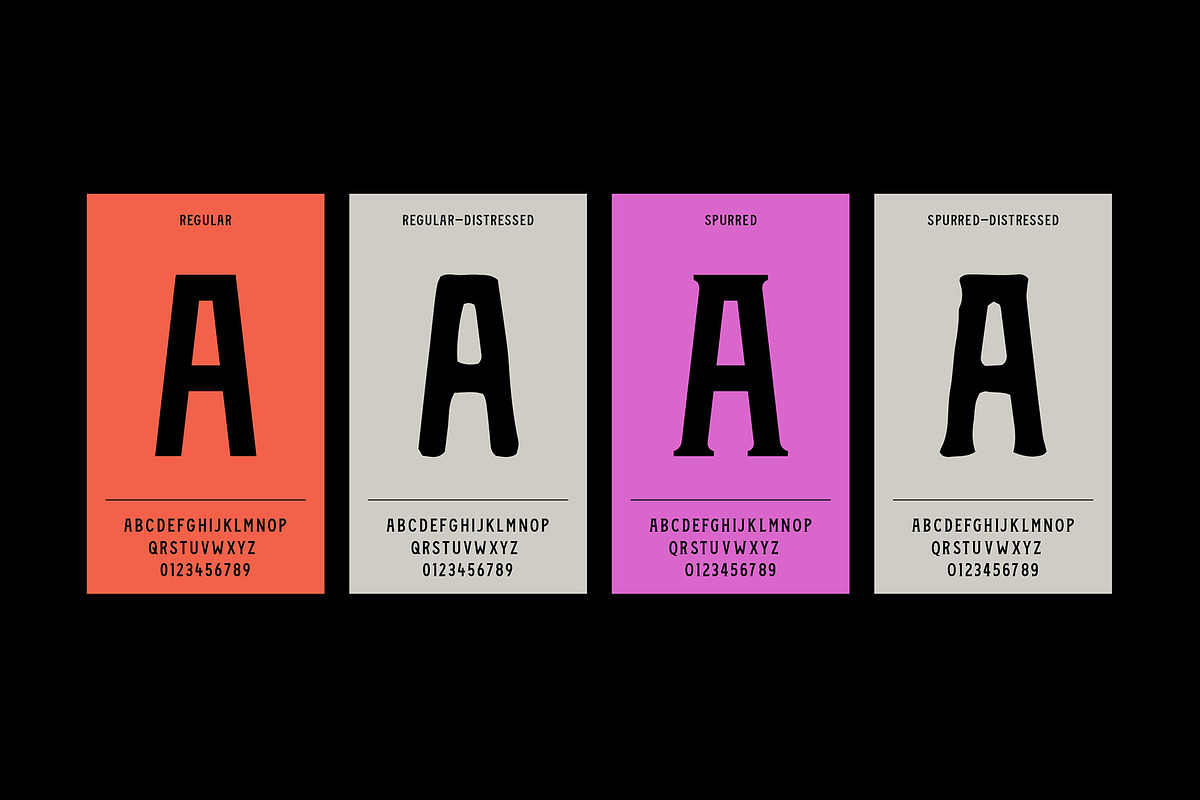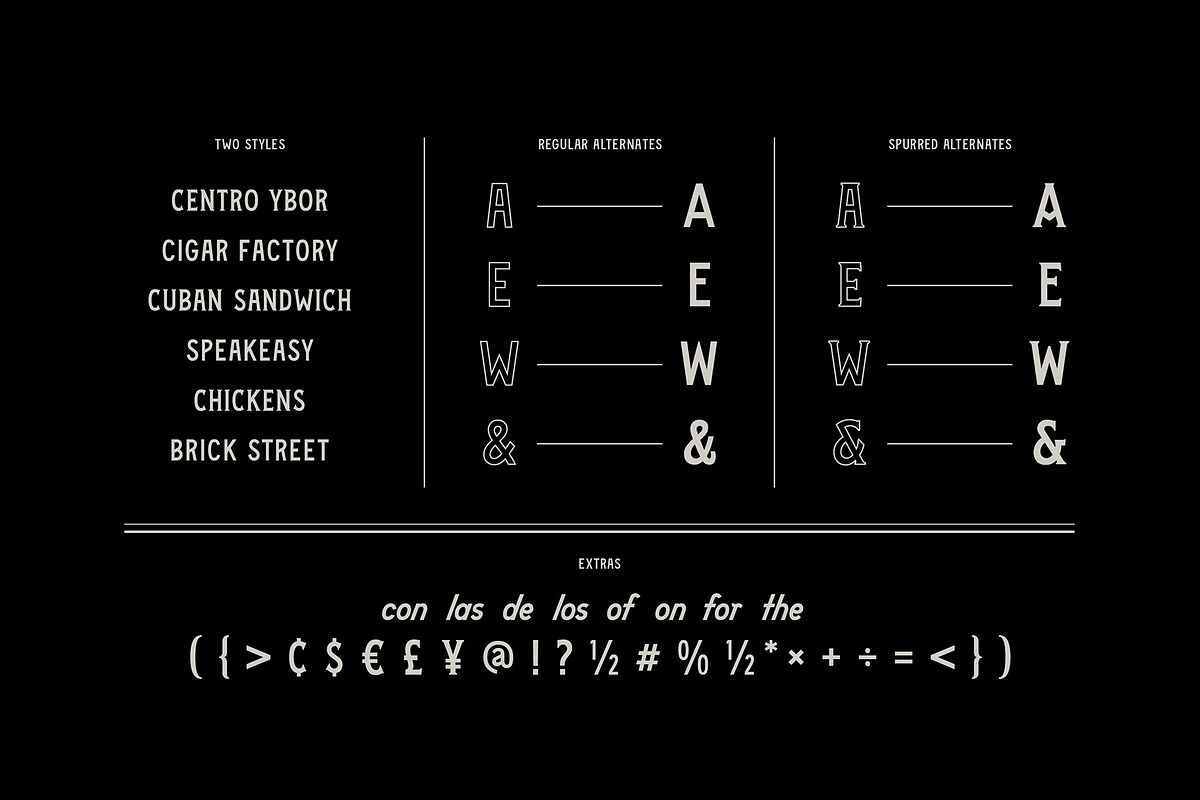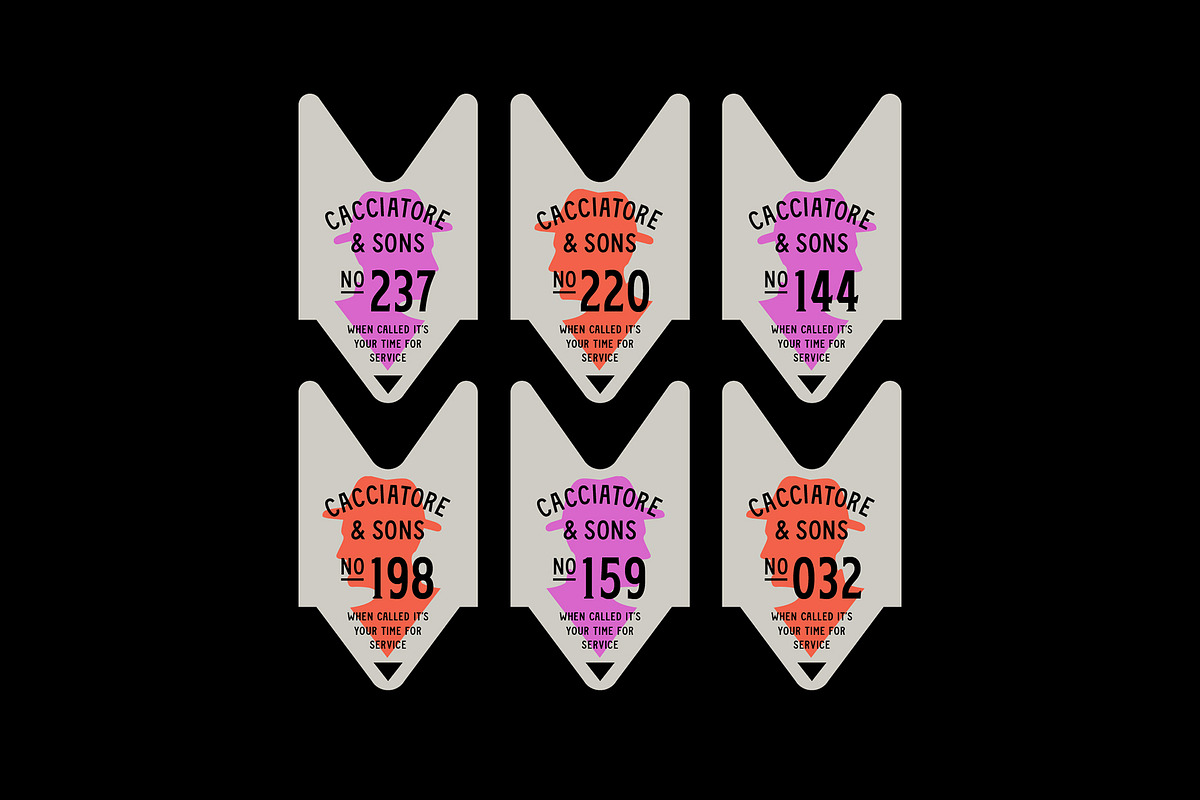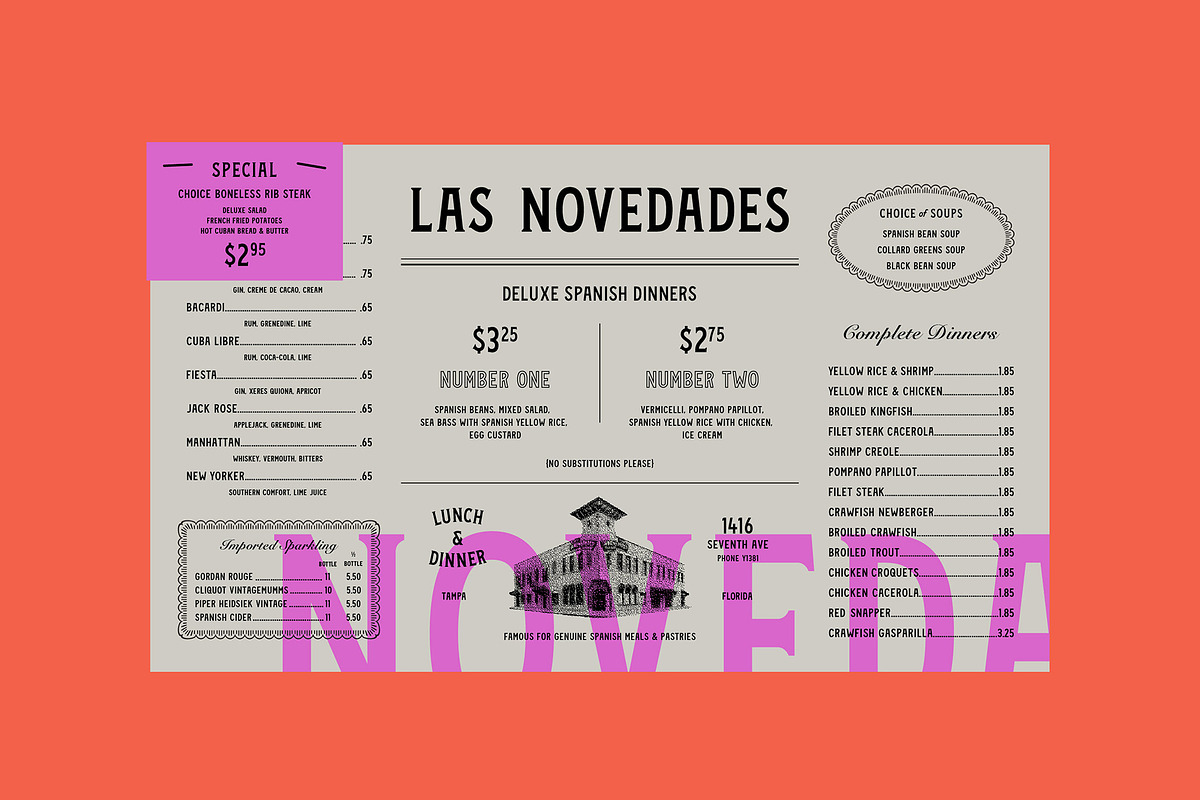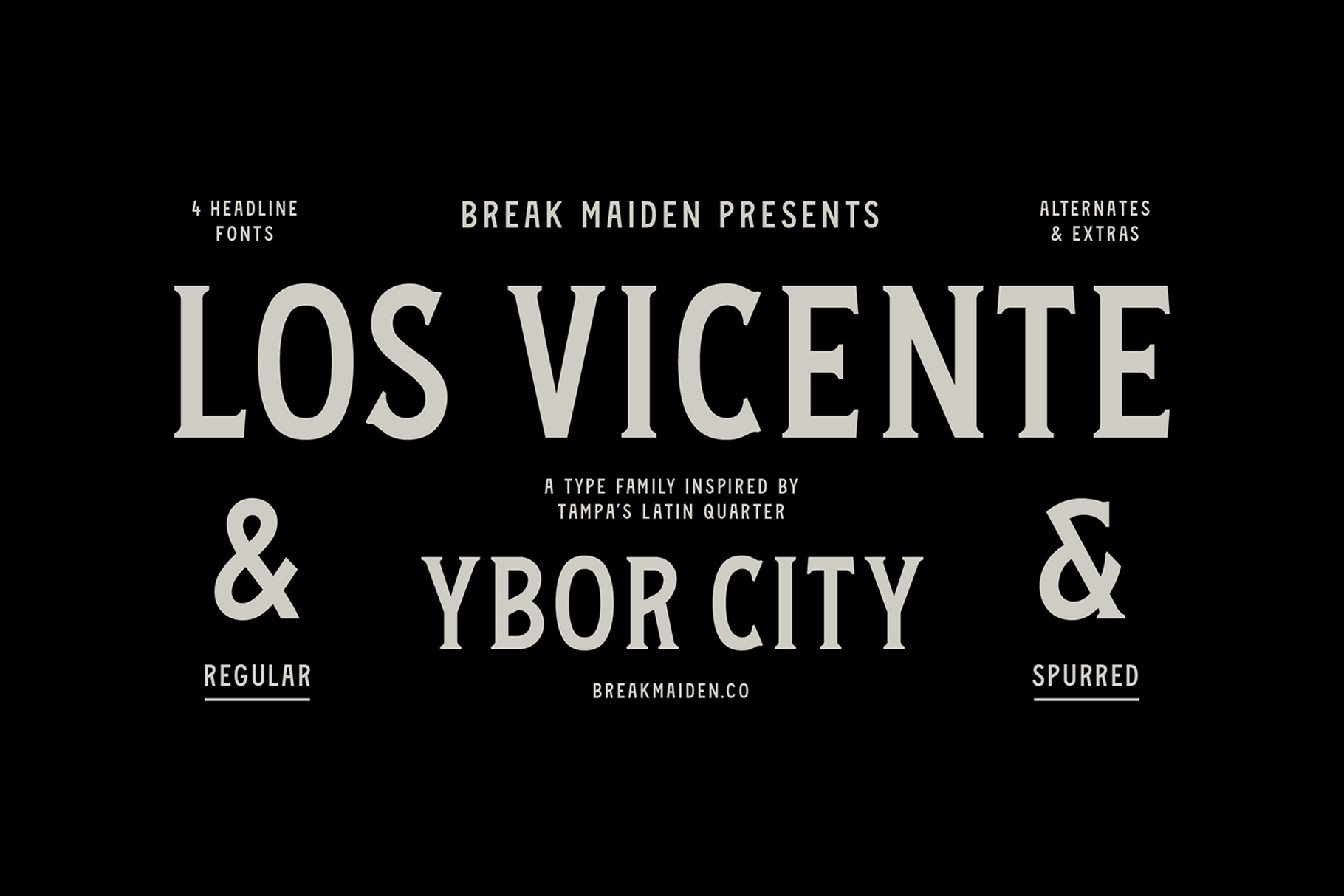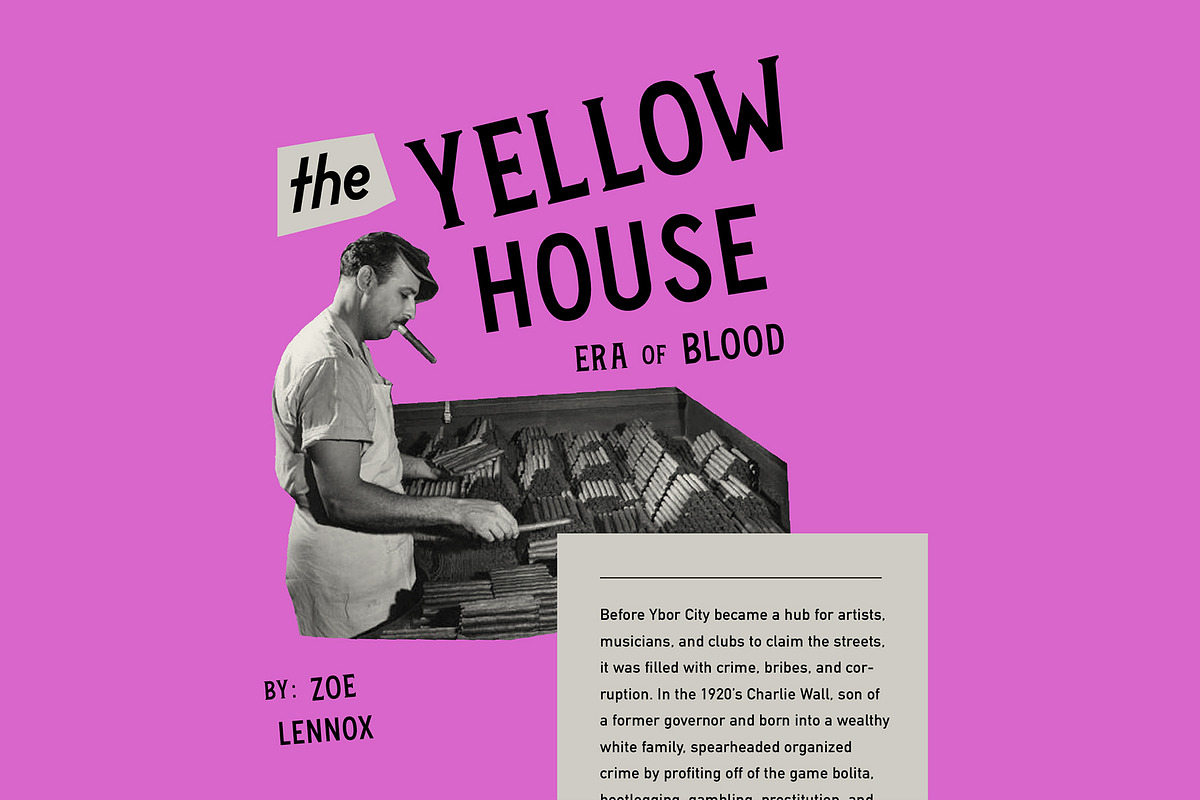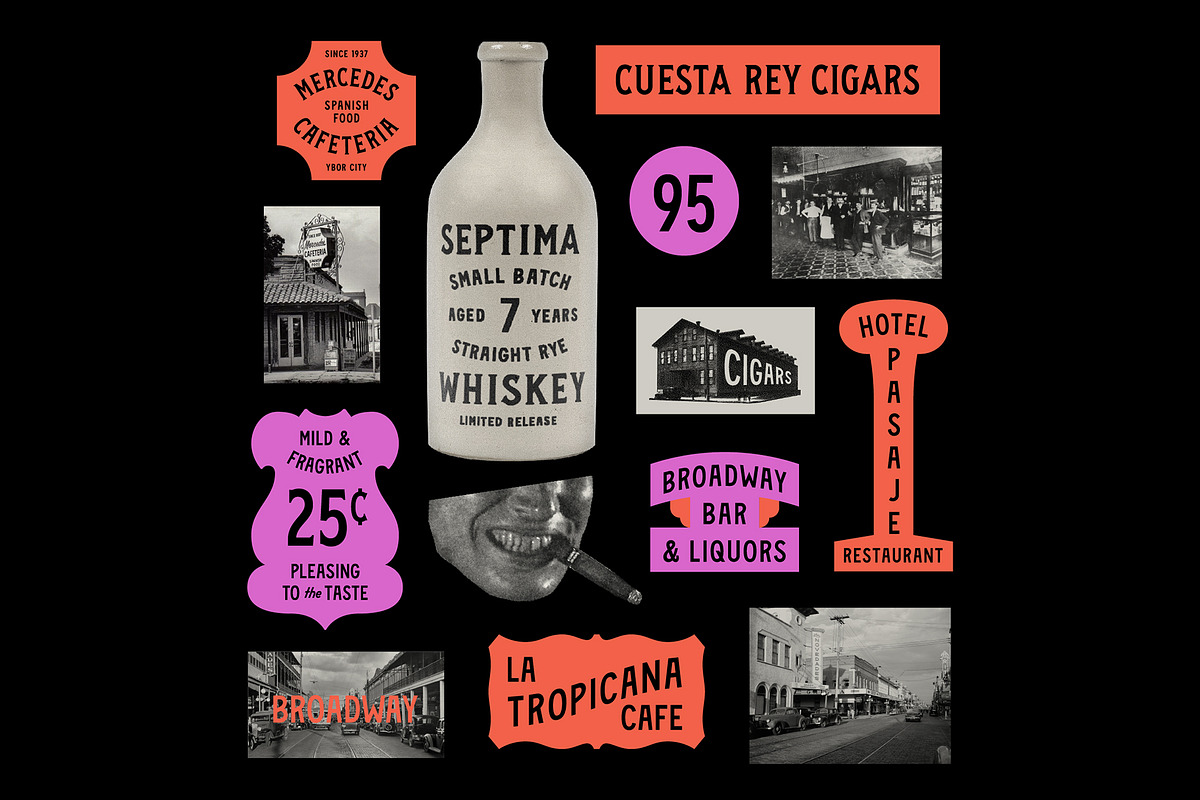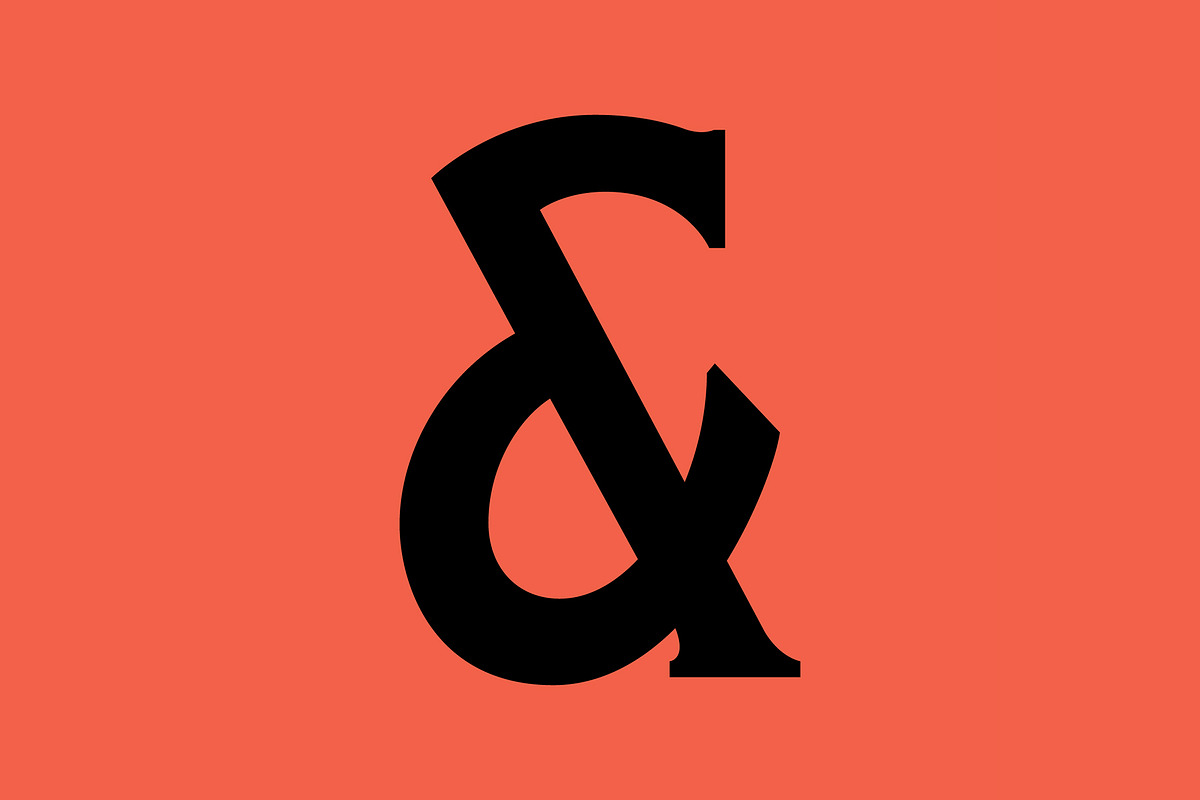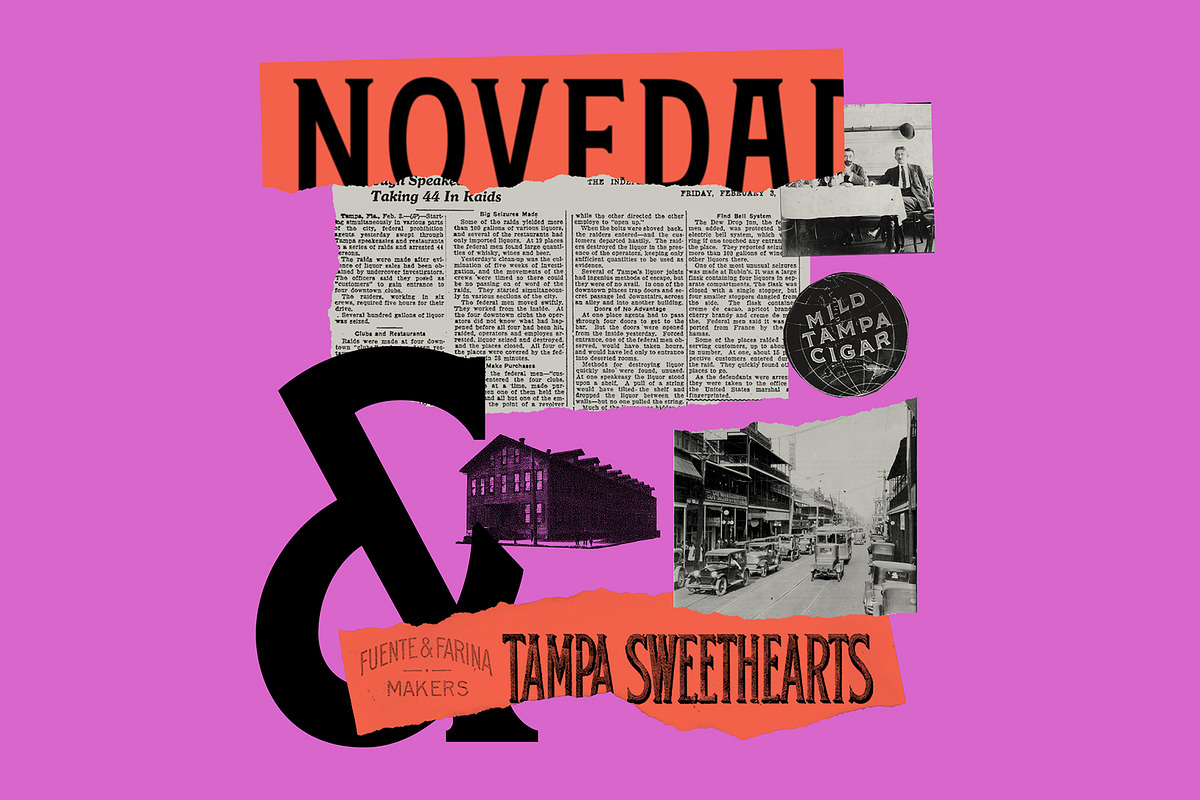
Vicente Font Family
The Vicente Family hails from Tampa’s Latin Quarter, Ybor City. This bold set of headline fonts were inspired by cigar boxes, factory facades, bootlegger bottles, and bolita balls.
Vicente contains 2 styles (Regular and Spurred) with matching distressed versions. It also includes a handful of alternate glyphs and over 25 extras.